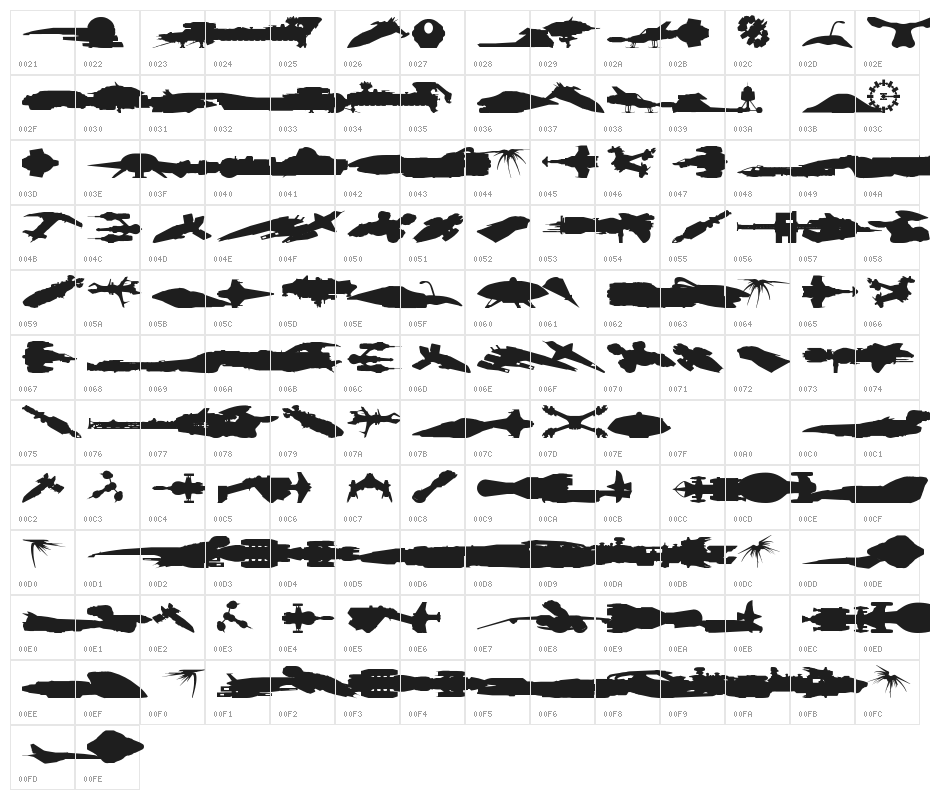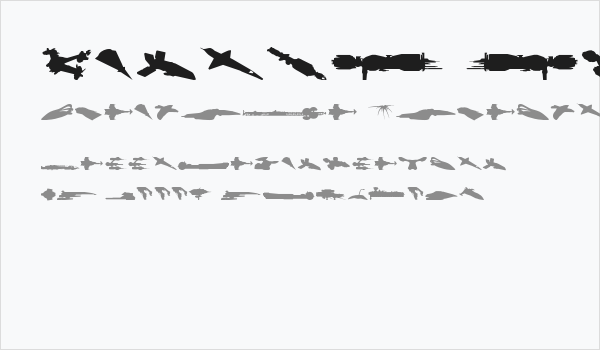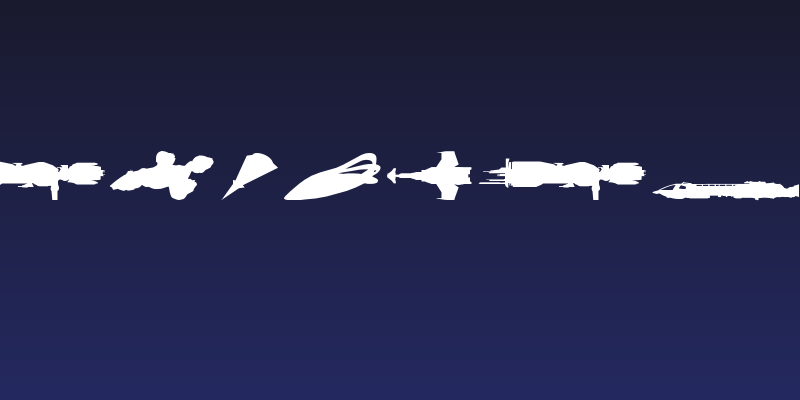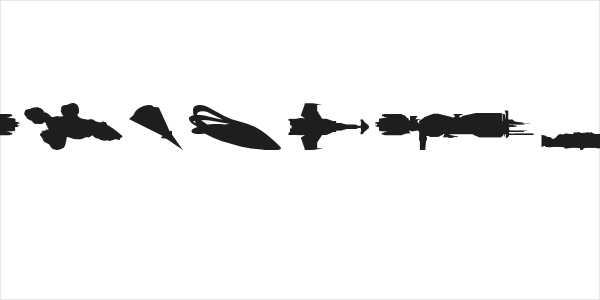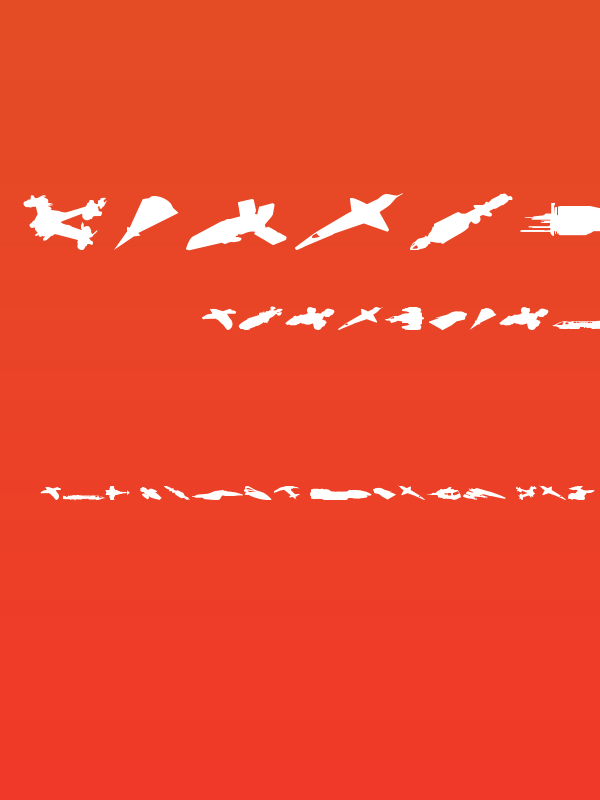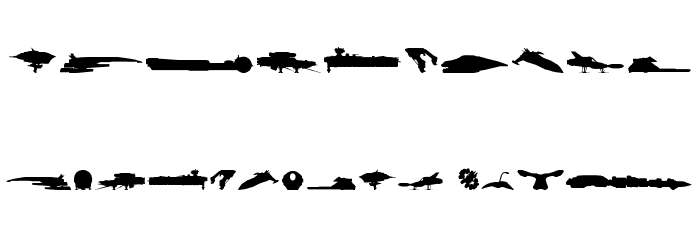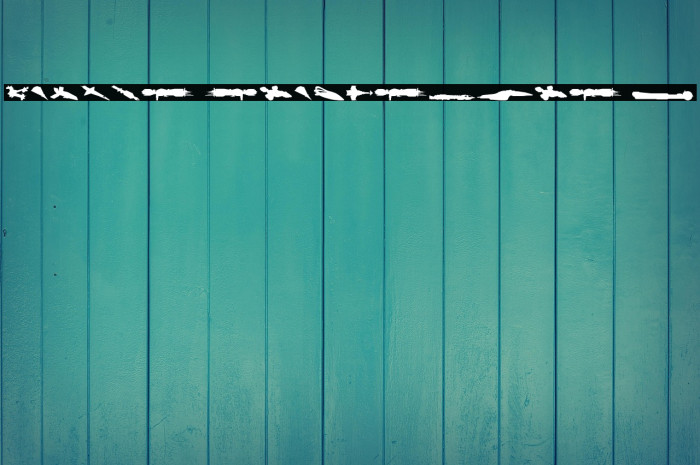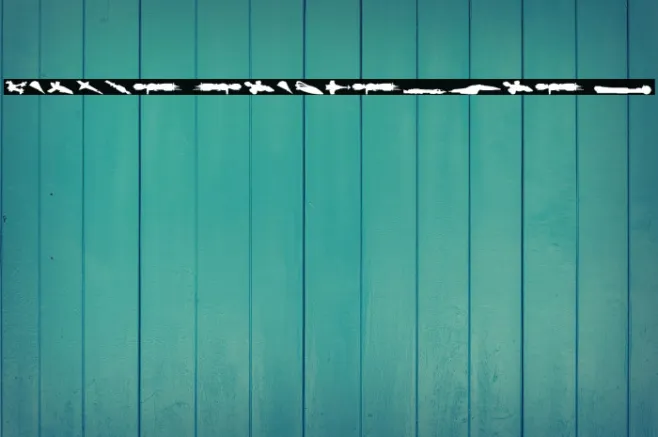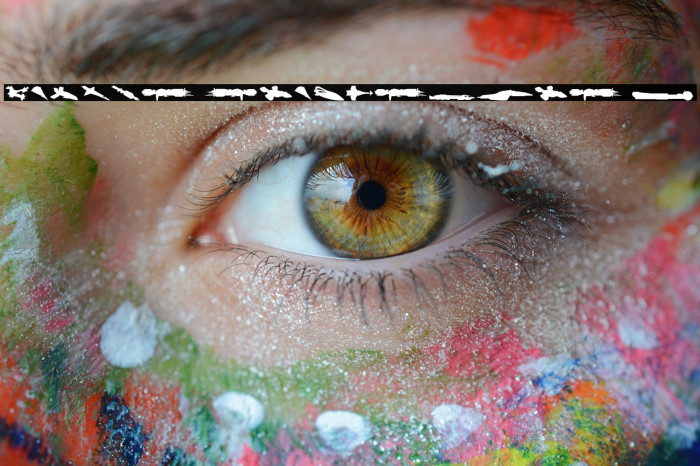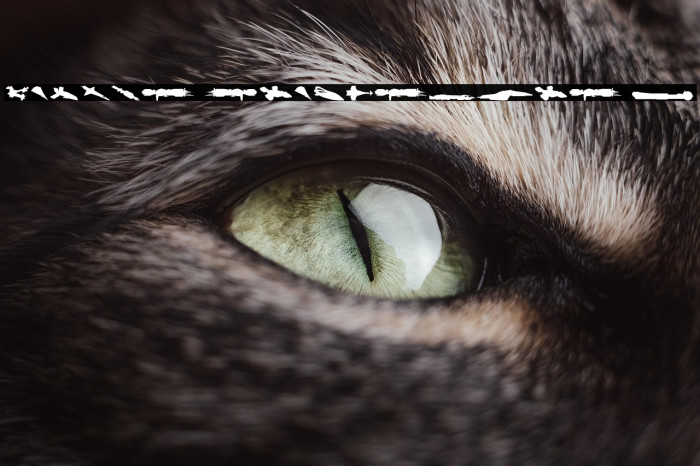
Famous Spaceships 2 Font
Famous Spaceships 2 Description
A decorative display font where each glyph is represented by a detailed silhouette of a famous spaceship from various science fiction franchises. The characters are highly stylized and not traditional letterforms, making them more suitable for thematic or illustrative purposes rather than standard text.
| Overall Style | Decorative, Thematic, Sci-Fi |
| Use Case | Logos, Headlines, Posters, Themed Graphics |
| Proposed Projects | Science fiction posters, themed event invitations, fan art, book covers, novelty t-shirts, and digital artwork. |